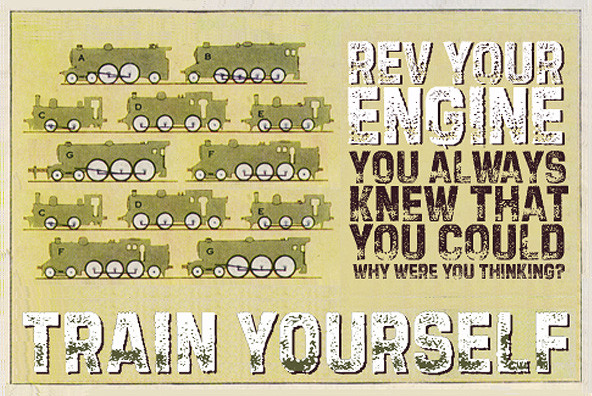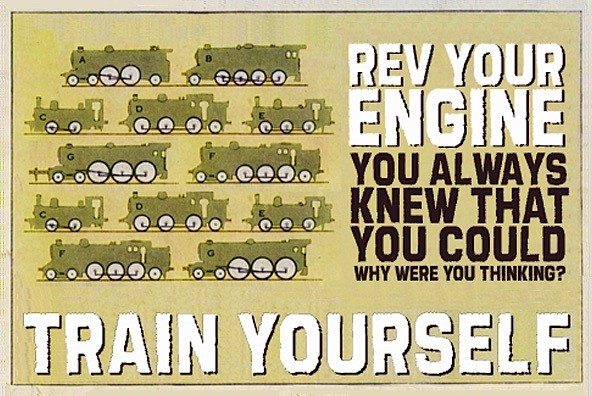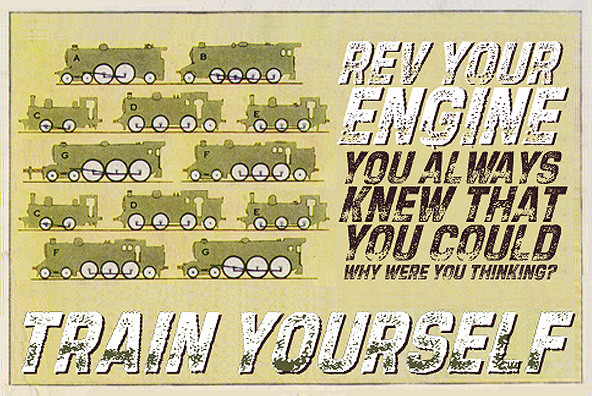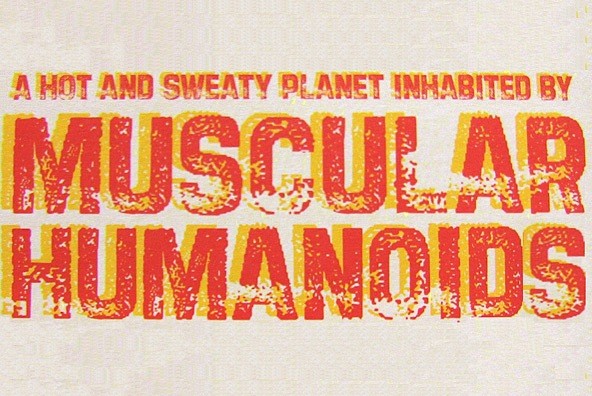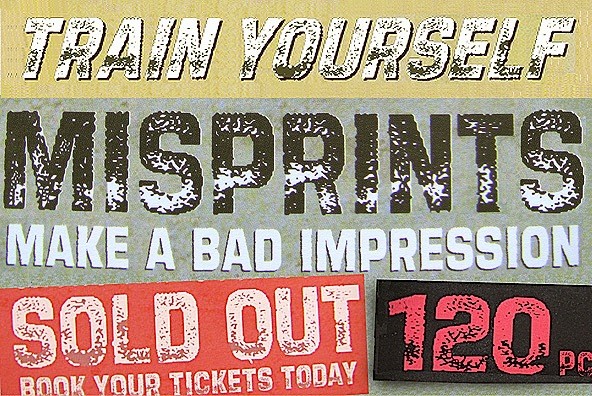
Tapeworm
Tapeworm™ is a font family designed to simulate newspaper headlines which have been printed with a light ink coverage.
SOLID DESIGNS
The Tapeworm™ family includes solid versions of the regular and oblique speckled characters, allowing you to control the colour of the speckle by layering speckled characters over the same text set in solid characters. The solid versions have had all speckle removed, and also look very interesting when set on their own.
AUTHENTIC SMUDGE
One of the most useful effects you can create by using both the regular and solid Tapeworm™ fonts is an authentic smudge or ink misprint. This can be accomplished by colouring the solid fonts with a colour that is in between the colour of the speckled text and the colour of the background, and then layering the text as described above.
Examples:
(1) If the speckled text is black and the background is going to be white, then try colouring the solid text 50% black.
(2) If the speckled text is red (C100, M100, K15) and the background is going to be a beige (C20 M20, Y20), then try colouring the solid text at the halfpoint values C60, M60, Y10, K7.5.
ALTERNATE CASES
While there are no real lowercase letters in the Tapeworm™ fonts, there are alternate versions of the uppercase characters found in the lowercase character slots, allowing you to create a more authentic textural variation in the set text. When you are setting words which contain double letters (as in the words "BETTER TEETH"), we suggest you utilize both character sets in order to create a more dynamic look.
FULL CHARACTER SET
Each font in the Tapeworm™ family has a full character set of 232+ letterforms, with all characters designed in the style of the font.